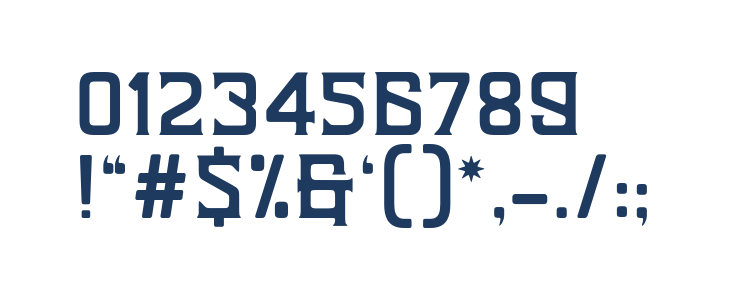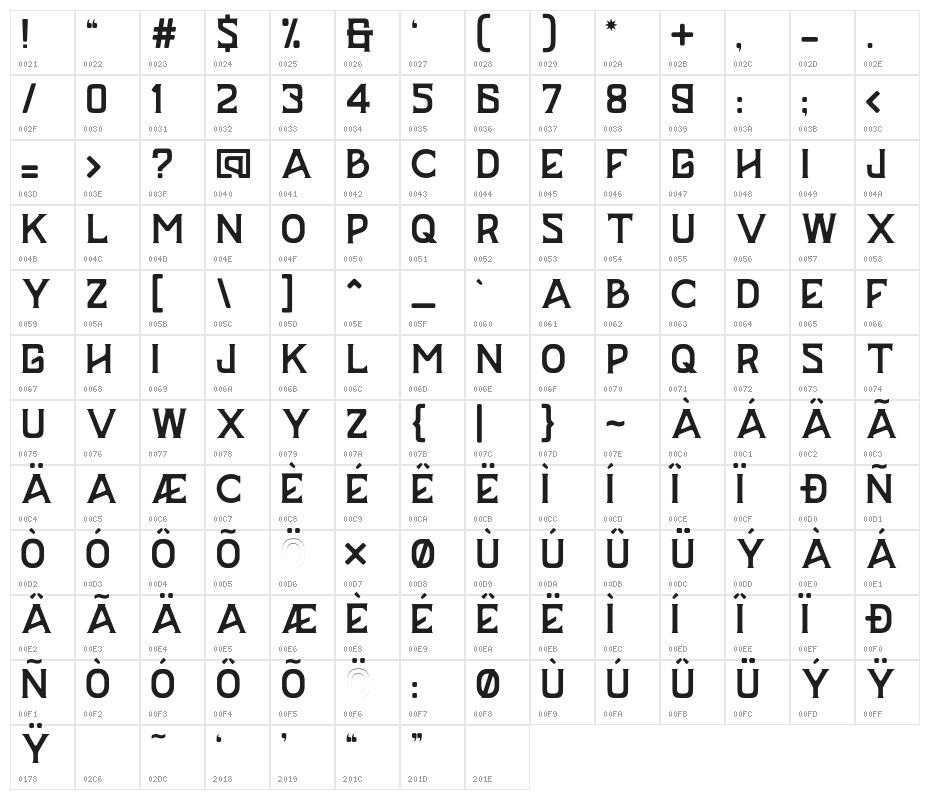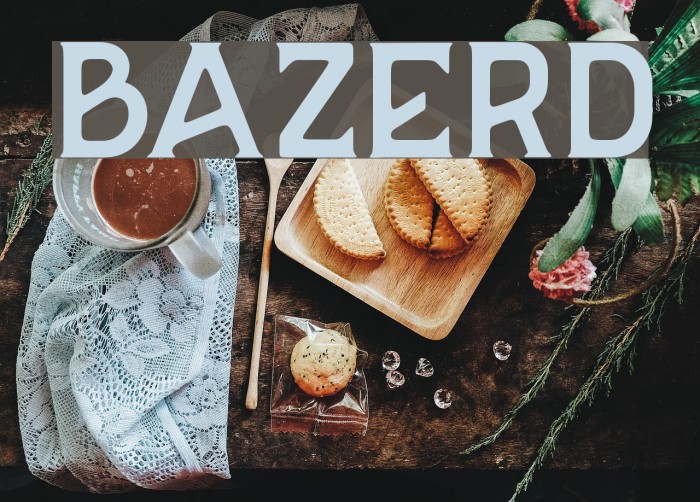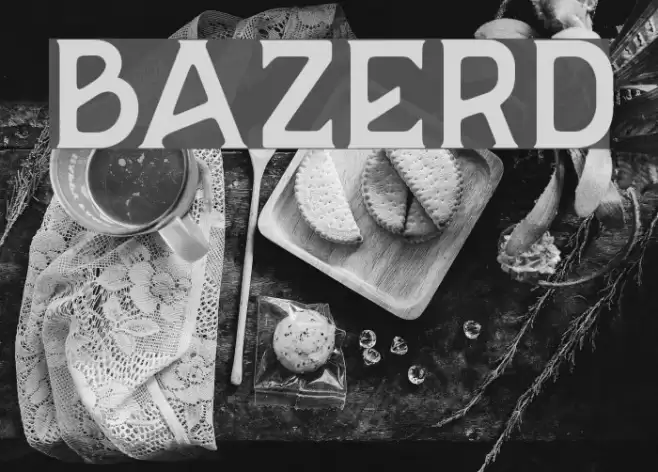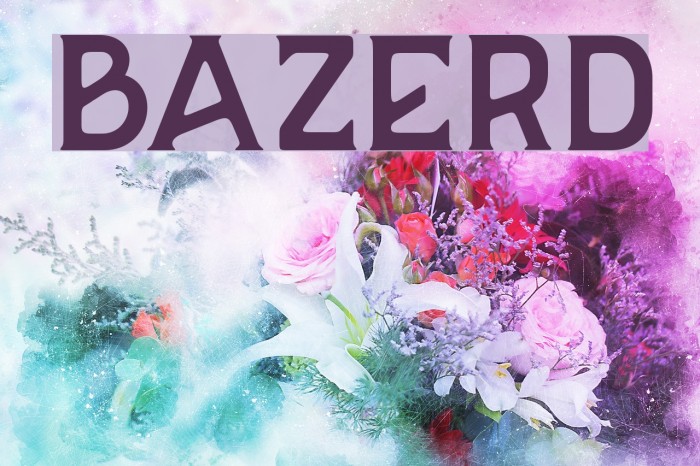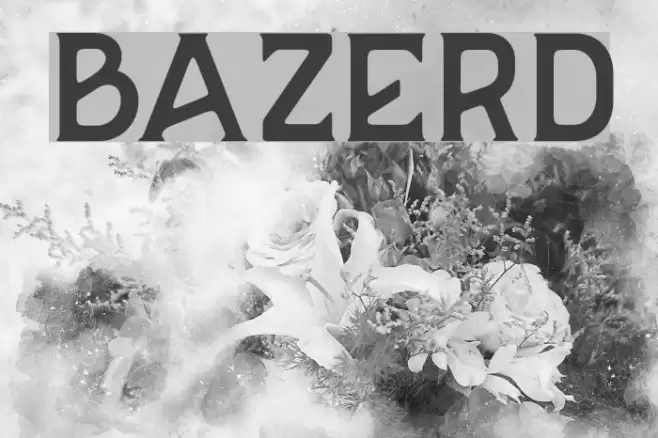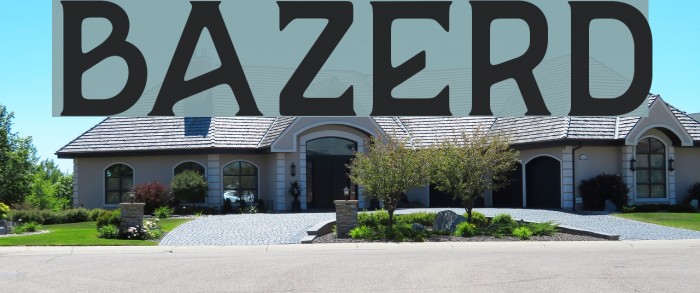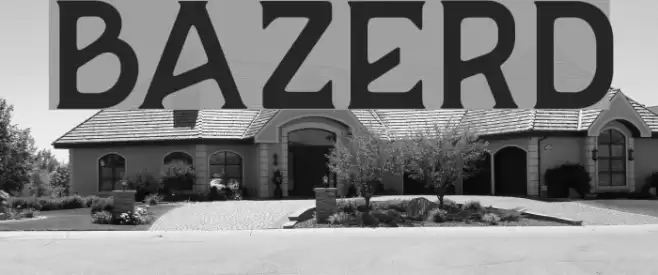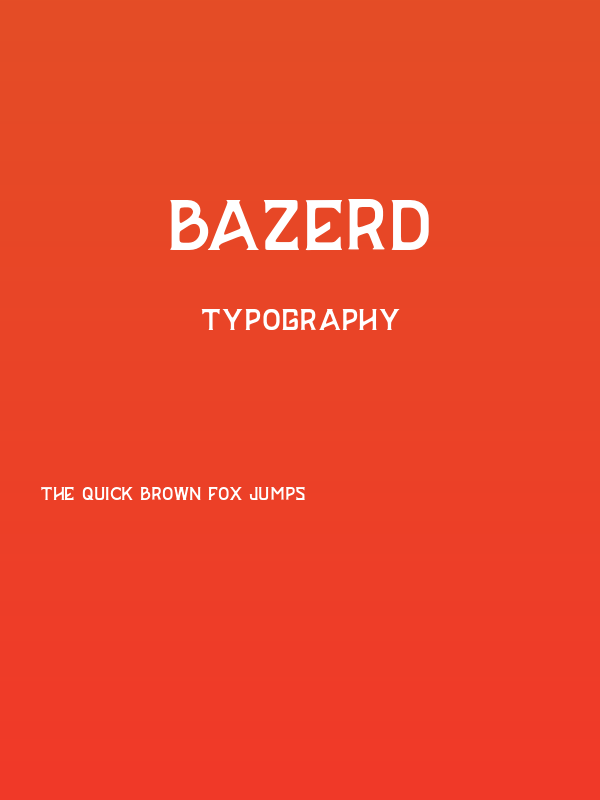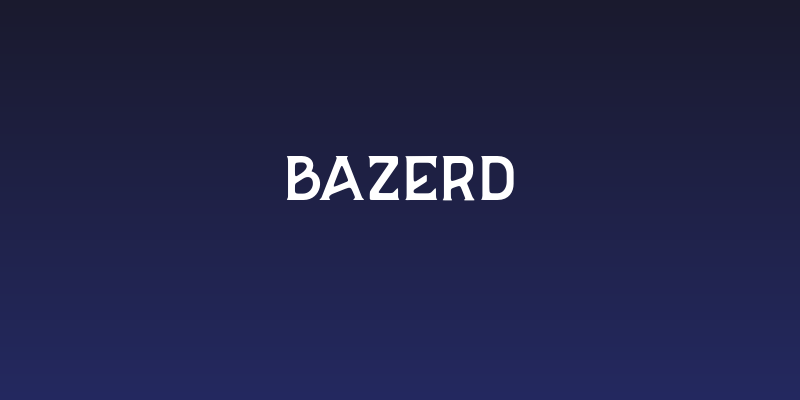
BAZERD Font
BAZERD Description
This font features a bold and striking design with a modern, geometric aesthetic. The characters are crafted with sharp angles and clean lines, giving them a futuristic and edgy appearance. The uppercase letters are particularly distinctive, with unique cuts and shapes that make them stand out. The numerals and special characters maintain this bold style, ensuring consistency across all glyphs. This font is designed to capture attention and convey a sense of strength and modernity.